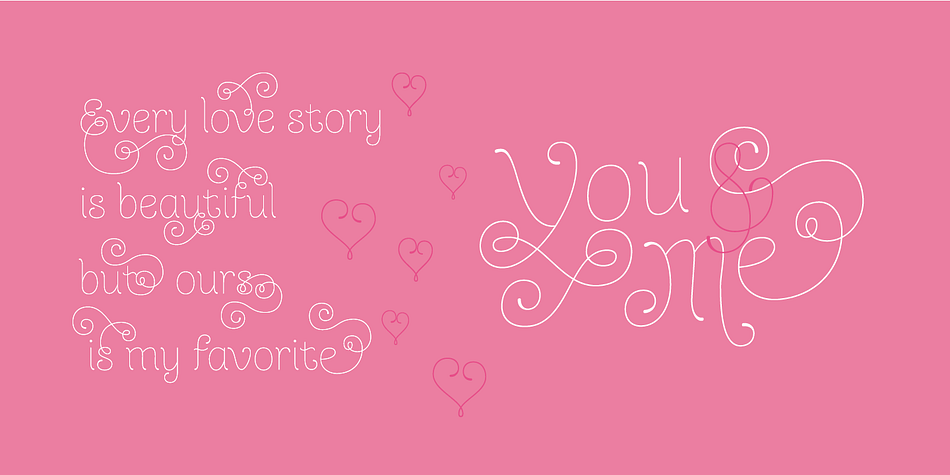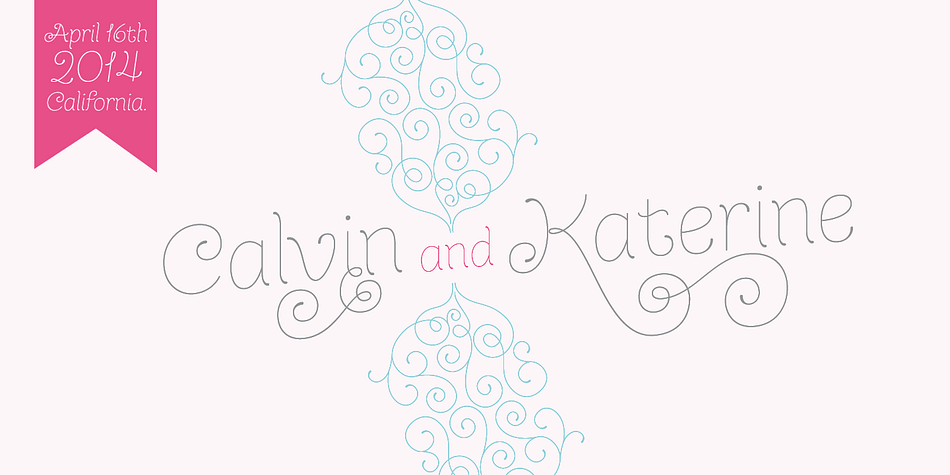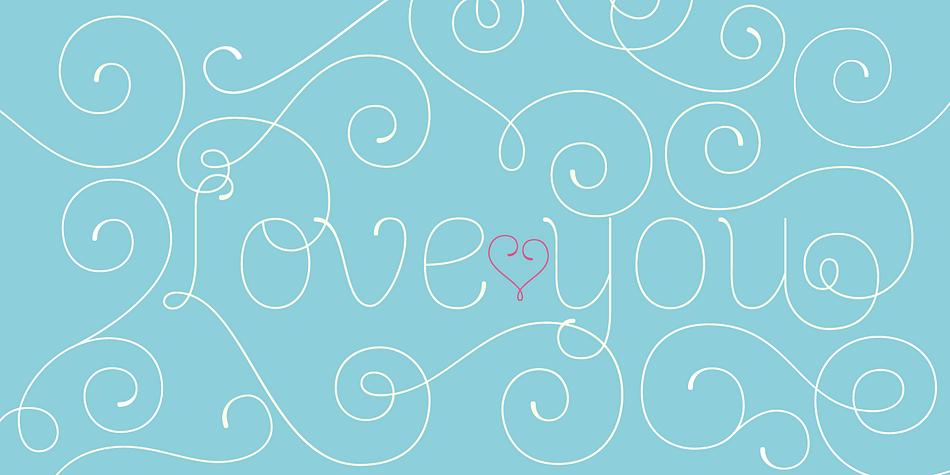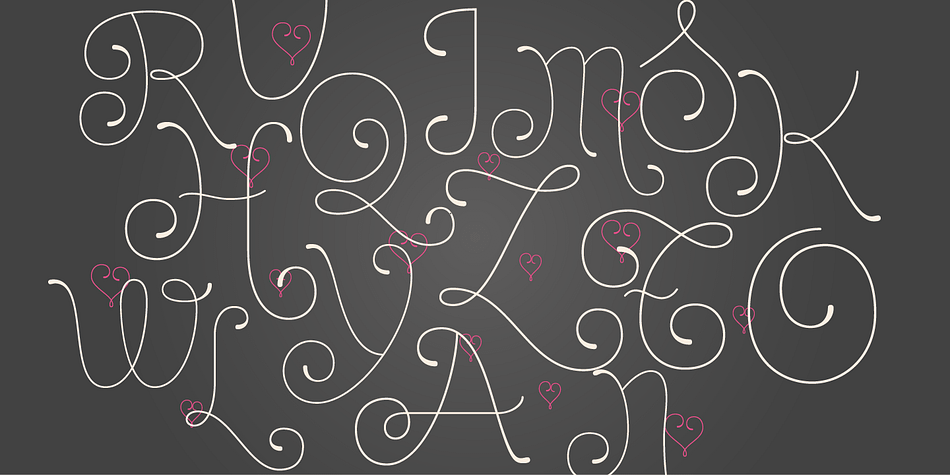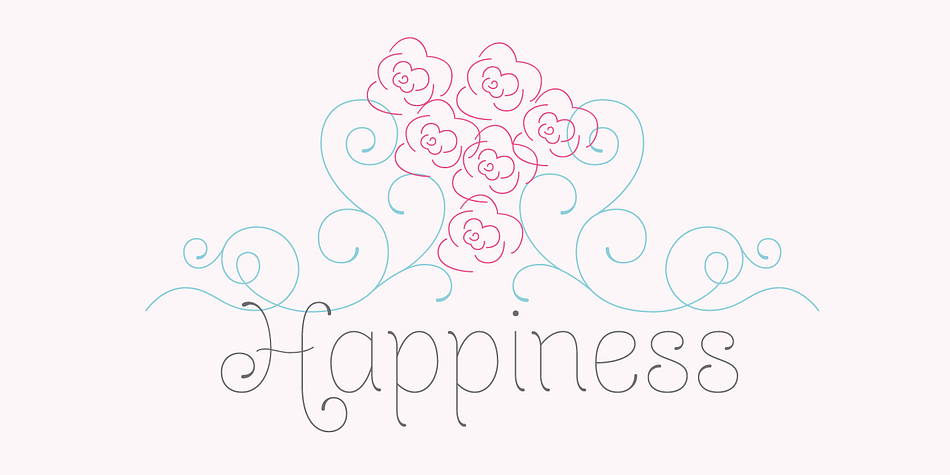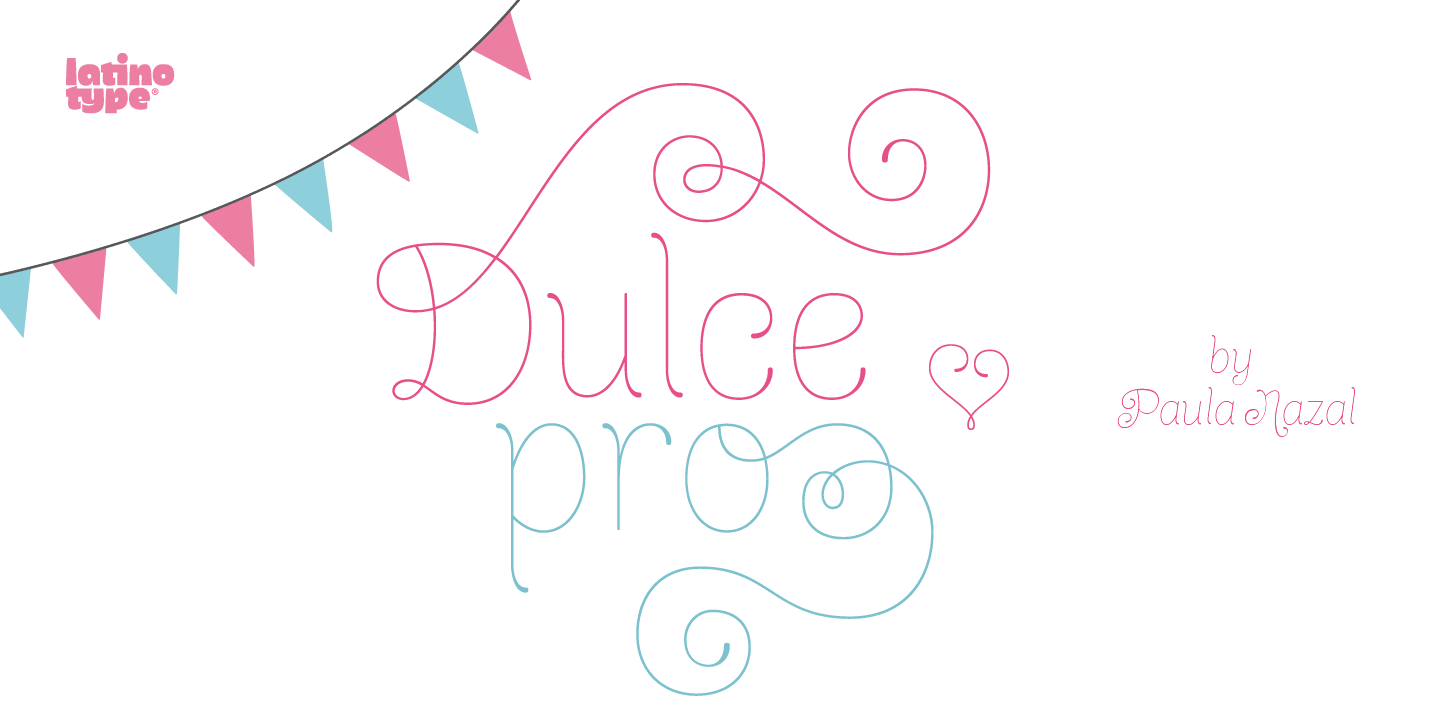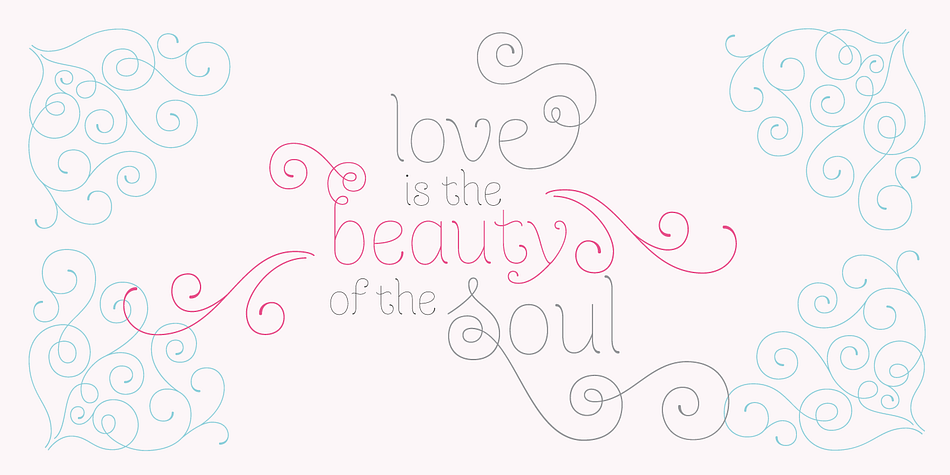
Dulce Pro is a dingbat and script font family. This typeface has five styles and was published by Latinotype.
Dulce pro (improved and changed version of Dulce), is a swash typeface, monoline elongated teardrop terminals. This romantic and thin font has certain characteristics of a script, without turning it, which gives a sophisticated and elegant.
Dulce pro, has initial capital letters with swashes and final in lowercase. To make it a more complete typeface we have added italics and ornaments also make any design, a very welcome time to design, among its ornaments can find hearts, a flower, banners, various frameworks to mix, among others.